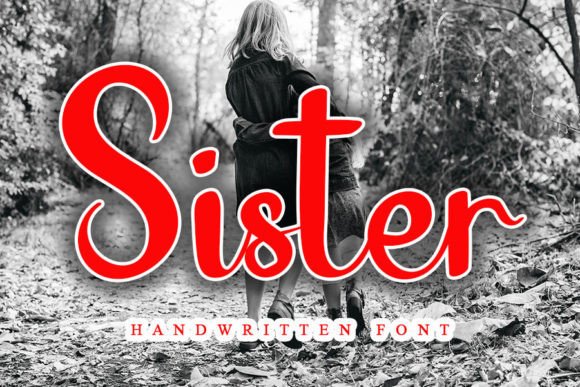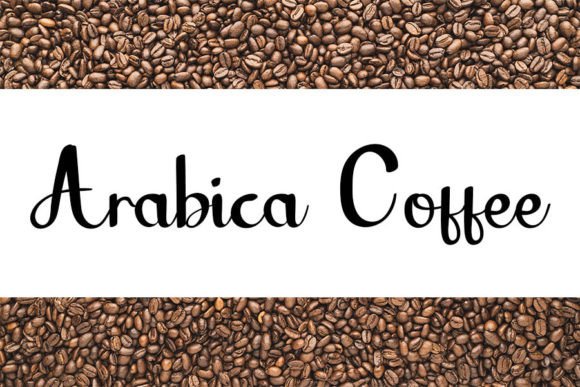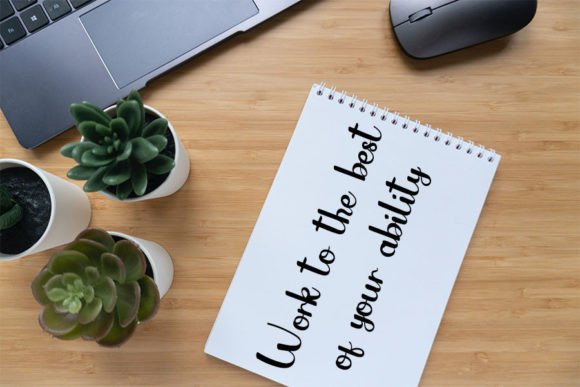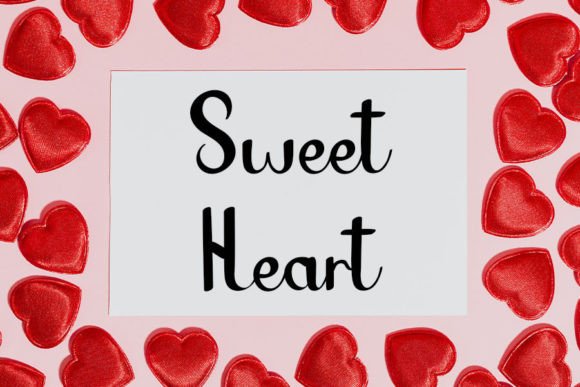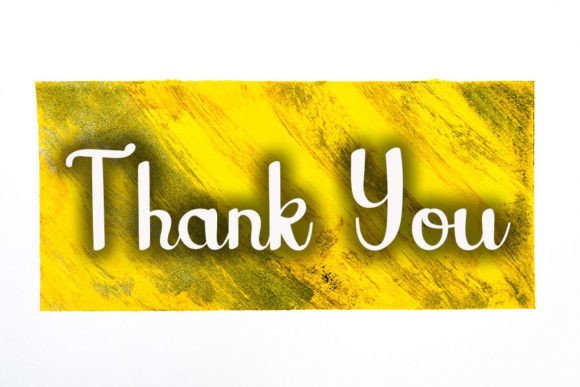
Sister Font
About Sister Font
“Sister” is presented as a friendly handwritten font, meticulously crafted to become a cherished favorite in your creative projects. This font seamlessly combines classy calligraphic influences with a contemporary and fresh feel, creating a unique blend that can enhance the charm of your designs.
The friendly and handwritten qualities of “Sister” make it versatile for a variety of creative applications. Whether you’re working on branding, invitations, posters, or any other project, this font brings a personal and approachable touch.
The balance of classy calligraphic influences with contemporary freshness in “Sister” gives it a distinctive character. This harmonious blend allows the font to adapt effortlessly to different design contexts, offering a timeless yet modern aesthetic.
By incorporating “Sister” into your creative endeavors, you have the opportunity to elevate the visual appeal of your designs. The careful design of this font suggests attention to detail, making it a valuable asset for enhancing the overall aesthetic of your projects.
In summary, “Sister” is more than just a font; it’s a carefully crafted tool for your creative endeavors. Embrace its friendly and classy calligraphic influences, and let it infuse a contemporary and fresh vibe into your designs, ensuring they stand out with outstanding charm.